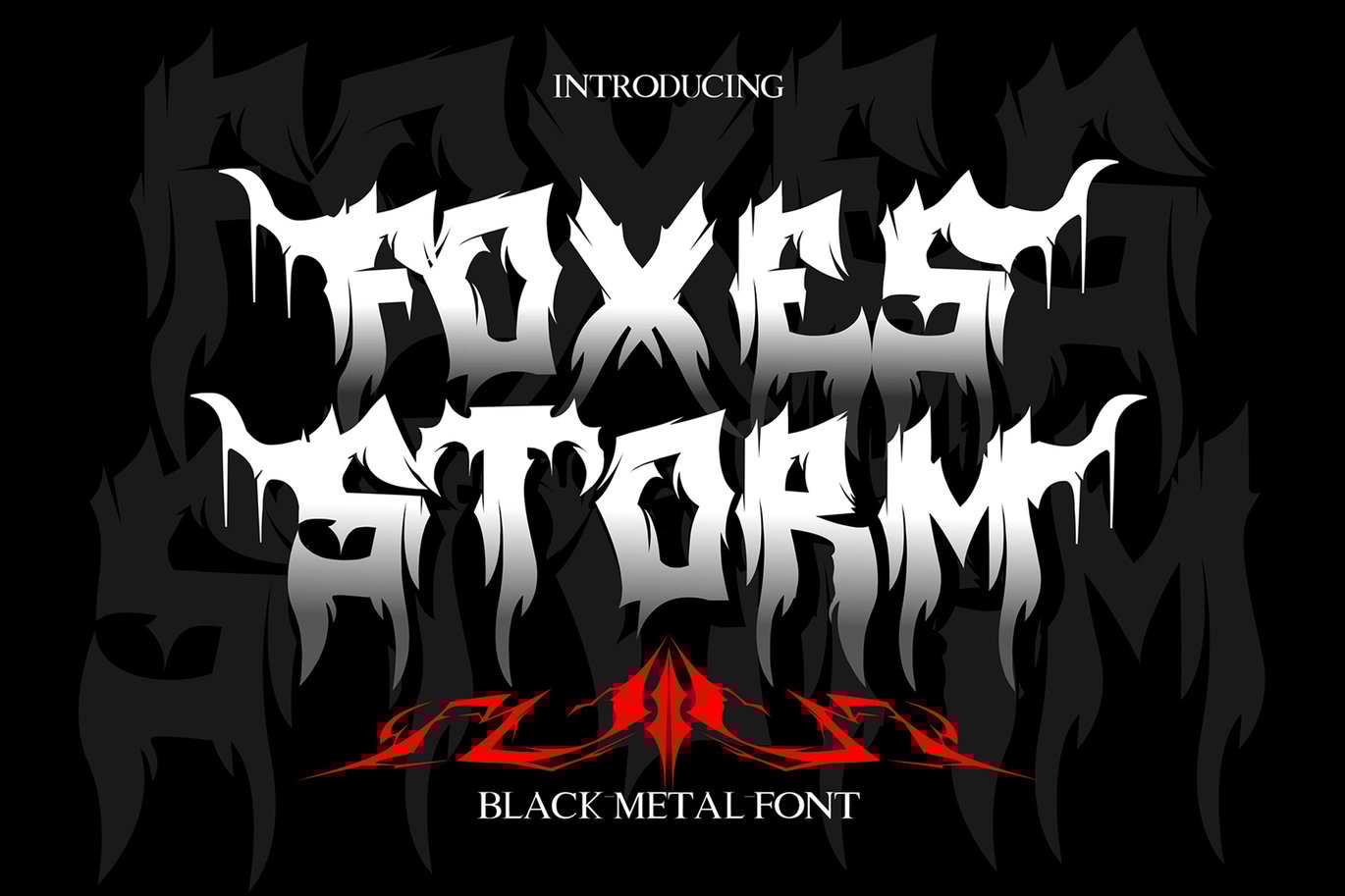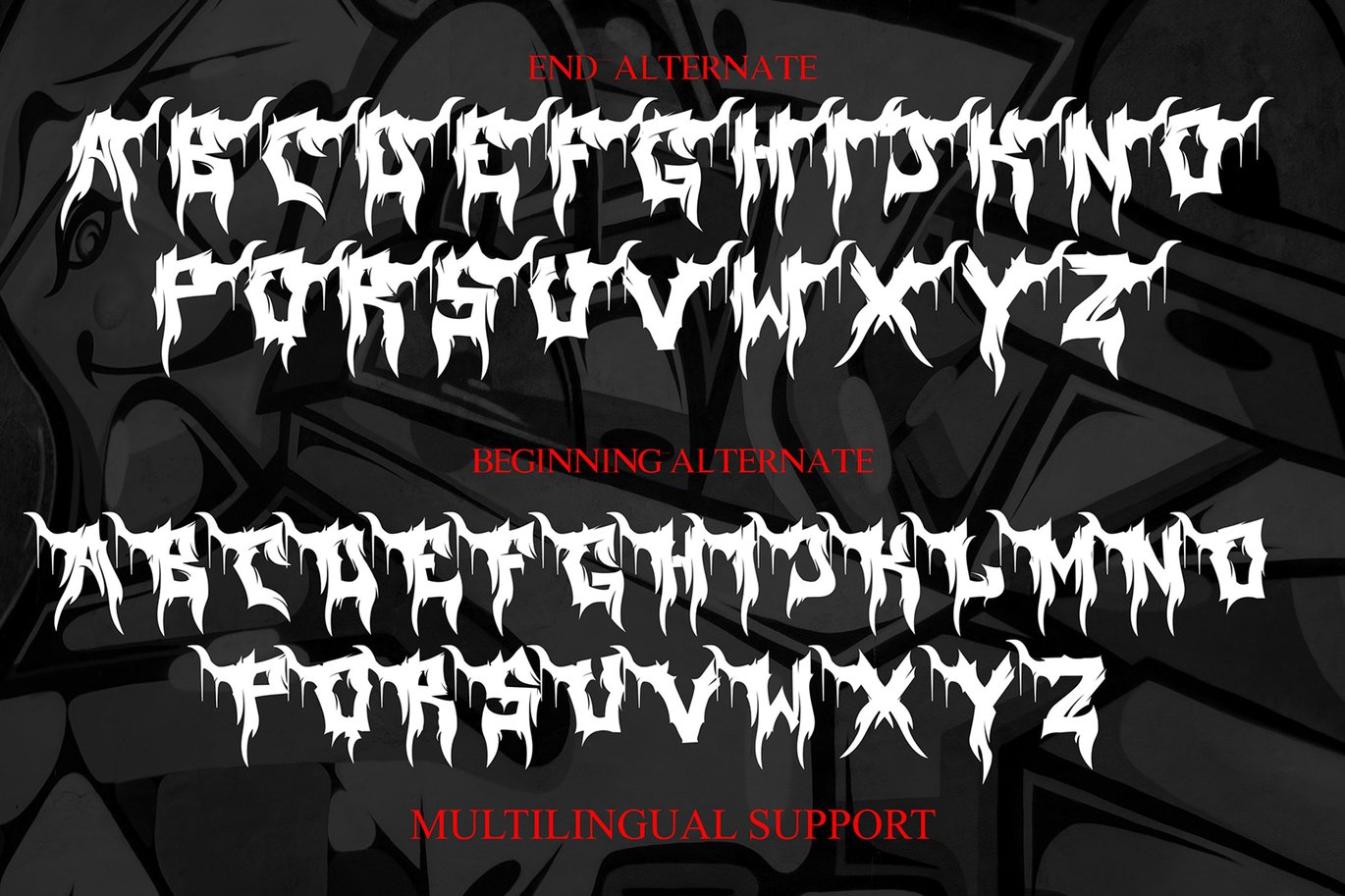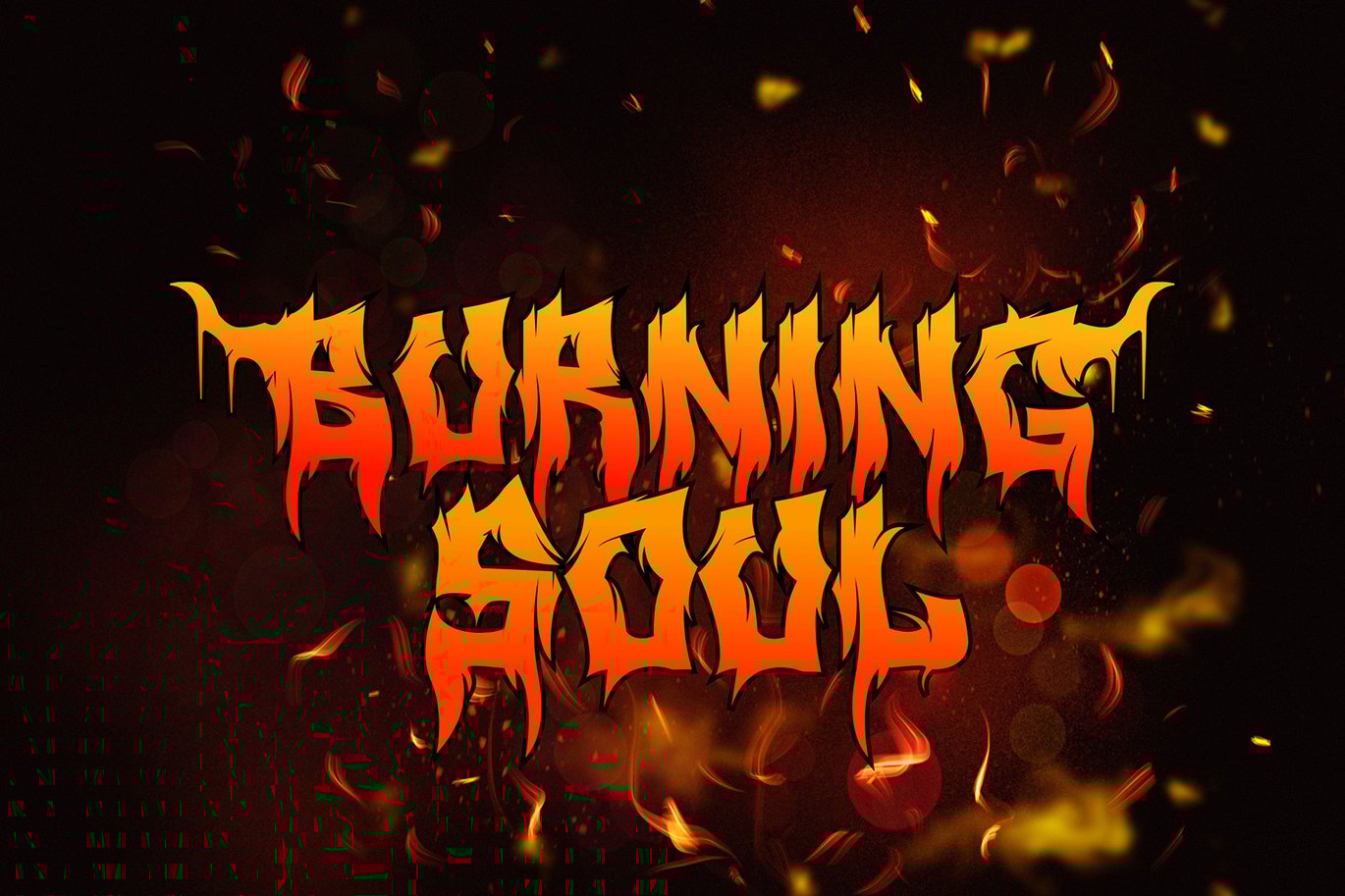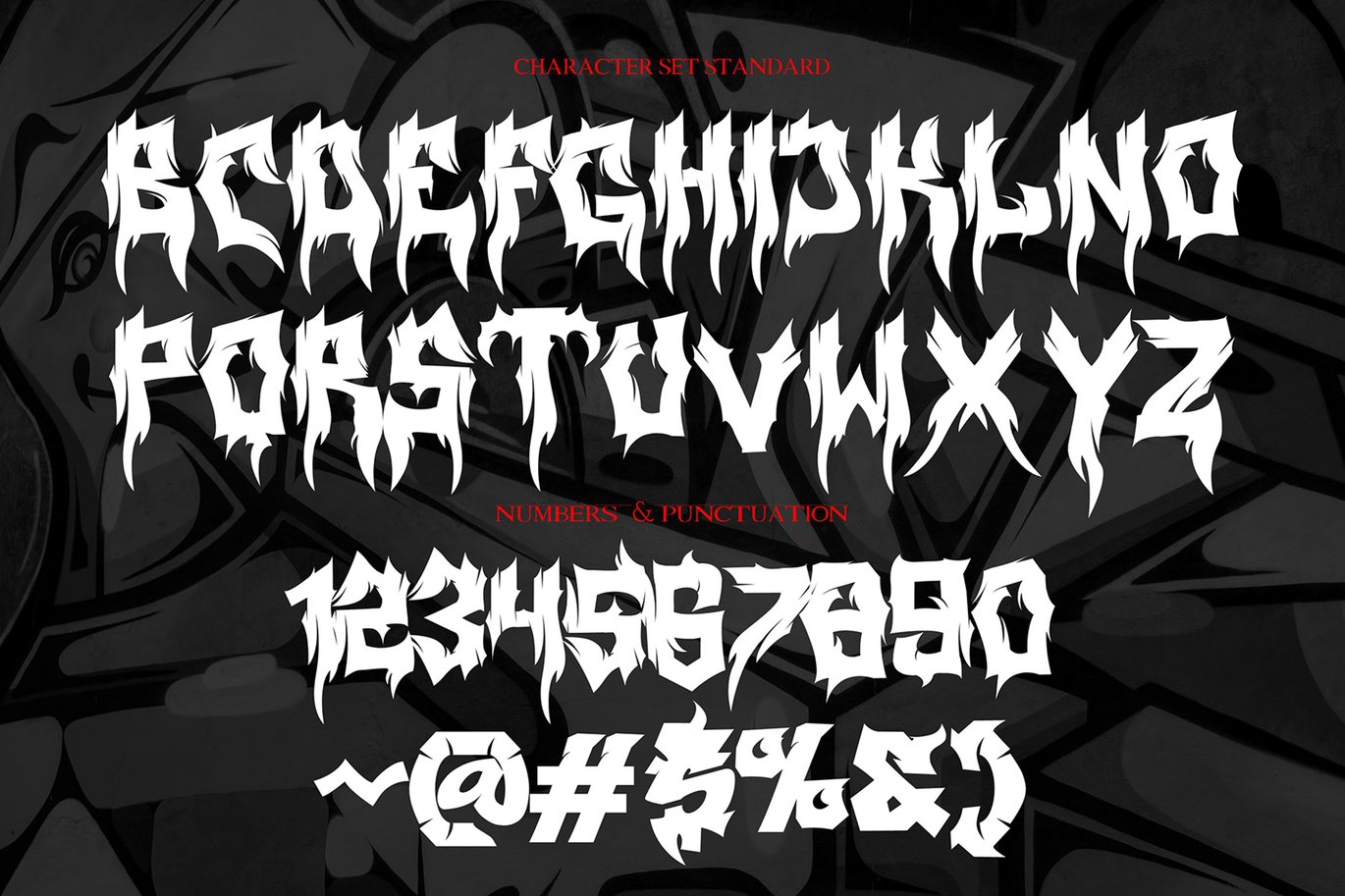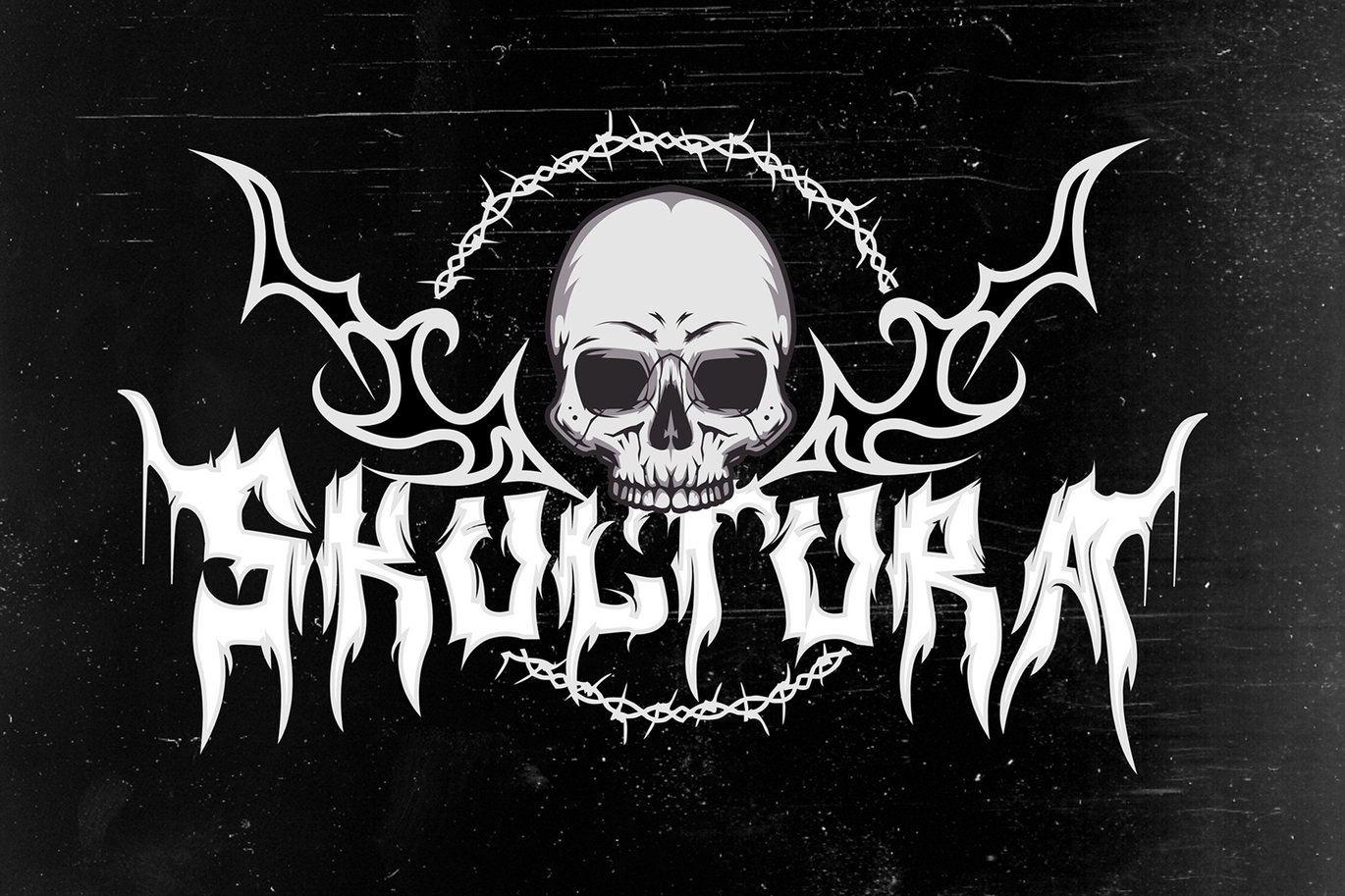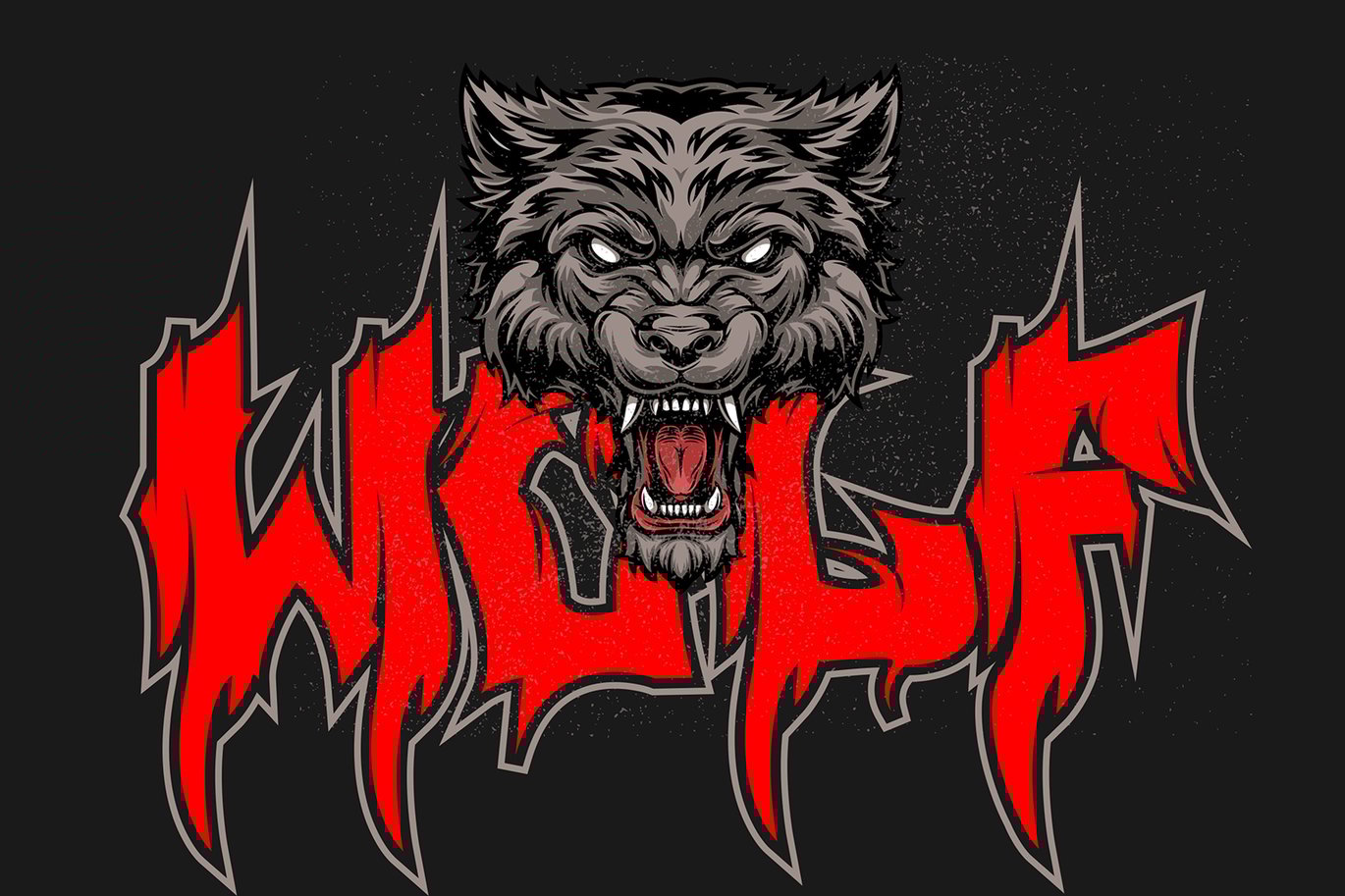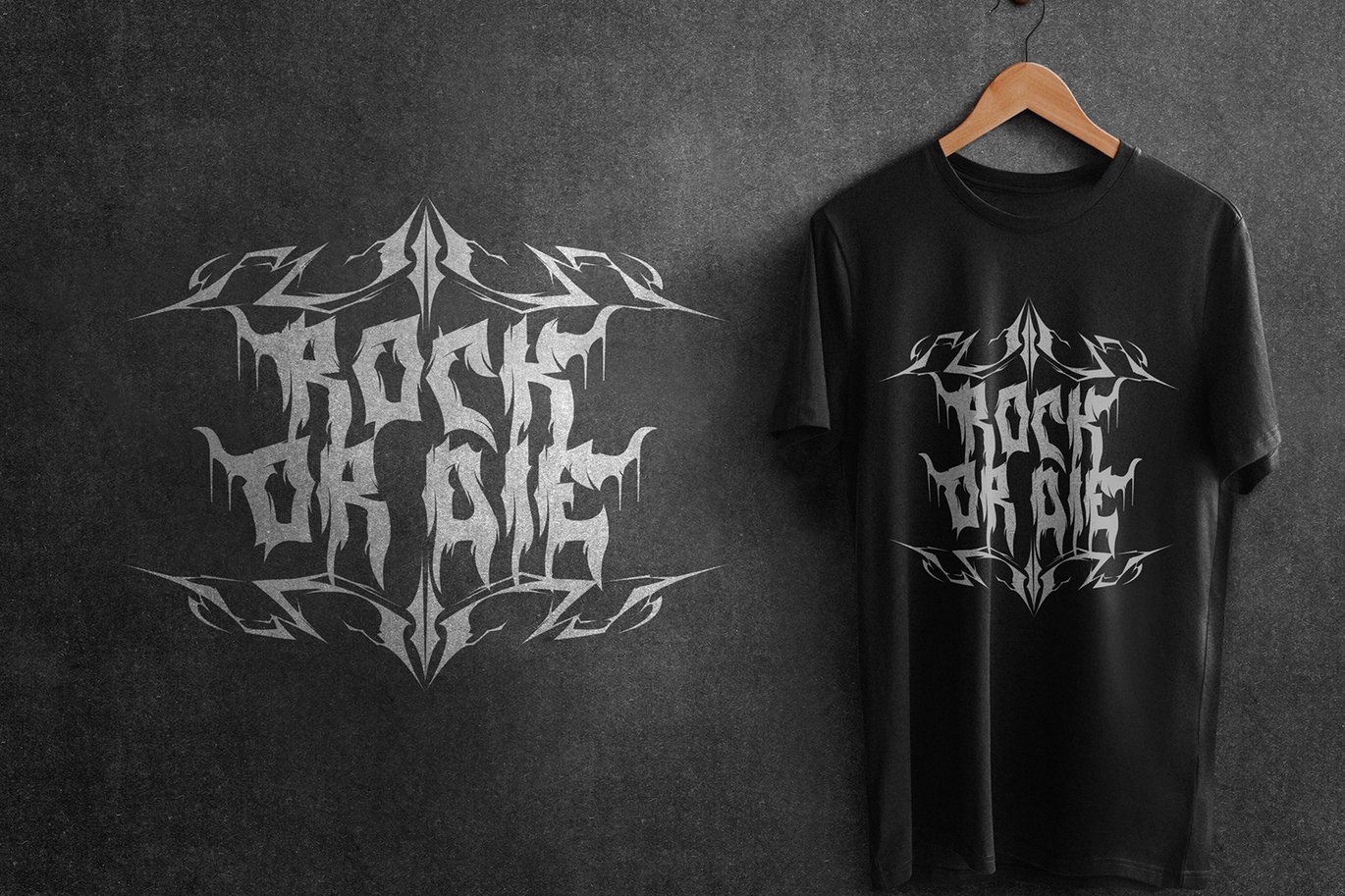
Foxes Storm – Black Metal Font
Introducing Foxes Storm, the font that embodies the essence of Black Metal. Bold and menacing, it’s the perfect choice for any project that requires a touch of darkness and edge. Its sharp edges and jagged curves create an aggressive and intense look that will captivate your audience and leave a lasting impression.
Designed with the Black Metal scene in mind, Foxes Storm is not for the faint of heart. Its thick lines and Gothic-inspired design make it a standout choice for album covers, posters, logos, and more. Whether you’re a musician, artist, or designer, this font is sure to elevate your work to the next level.
So if you want to make a statement with your designs and leave an unforgettable impression, look no further than Foxes Storm. This Black Metal font is the perfect choice for anyone who wants to stand out from the crowd and make their mark on the world.